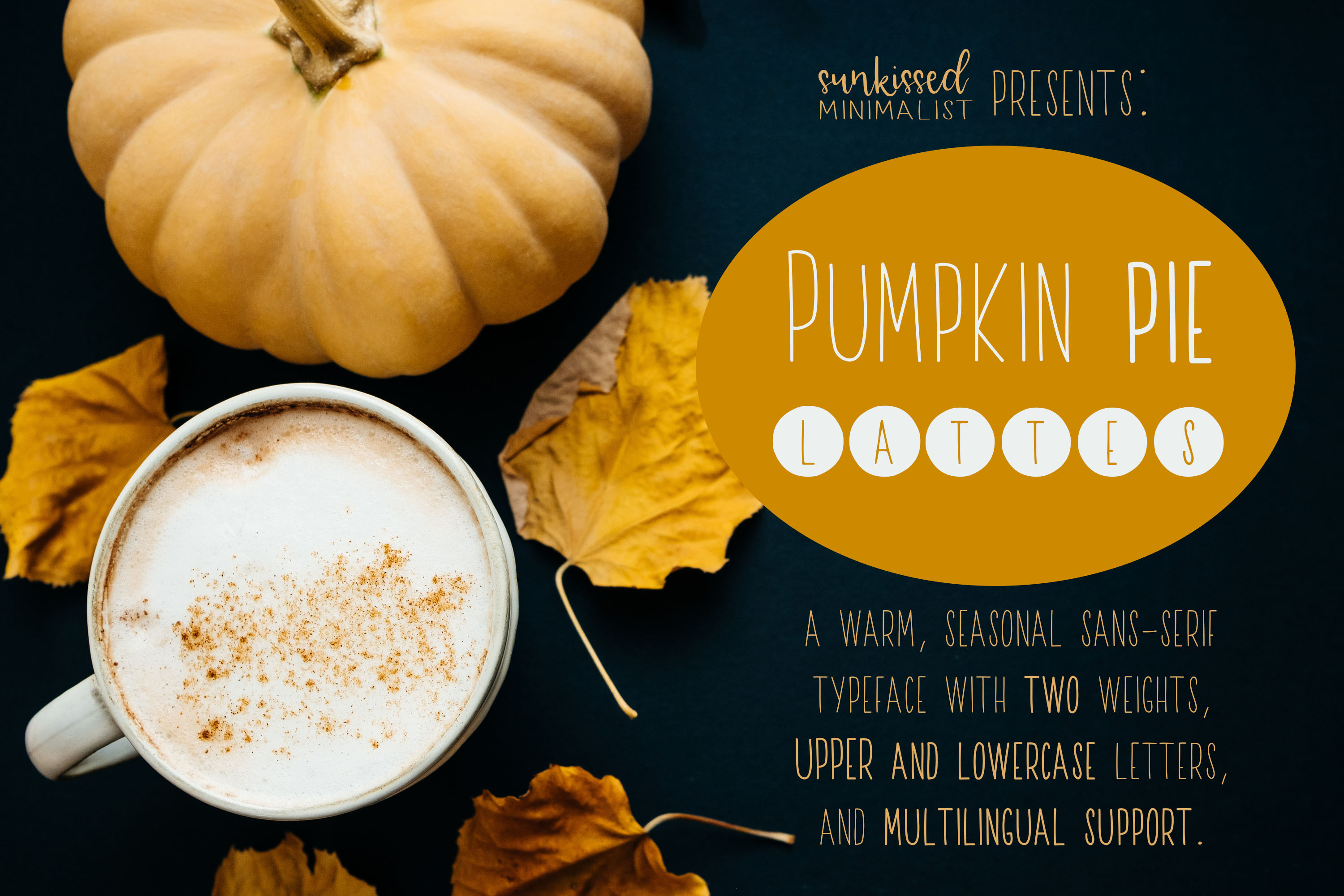
Pumpkin Pie Lattes - A Warm Font
Pumpkin Pie Lattes is a warm sans-serif font perfect for pairing with others. It is a small caps font with two weights: thick and thin.
- Uppercase Characters
- Lowercase Characters
- Multilingual support for various languages: French, Spanish, Italian